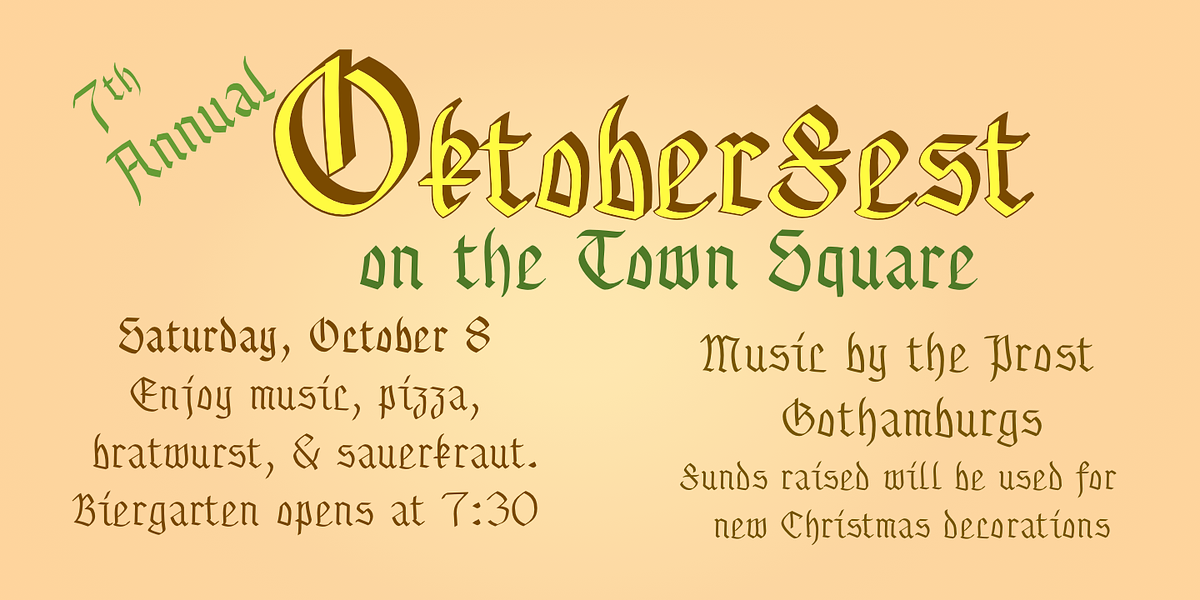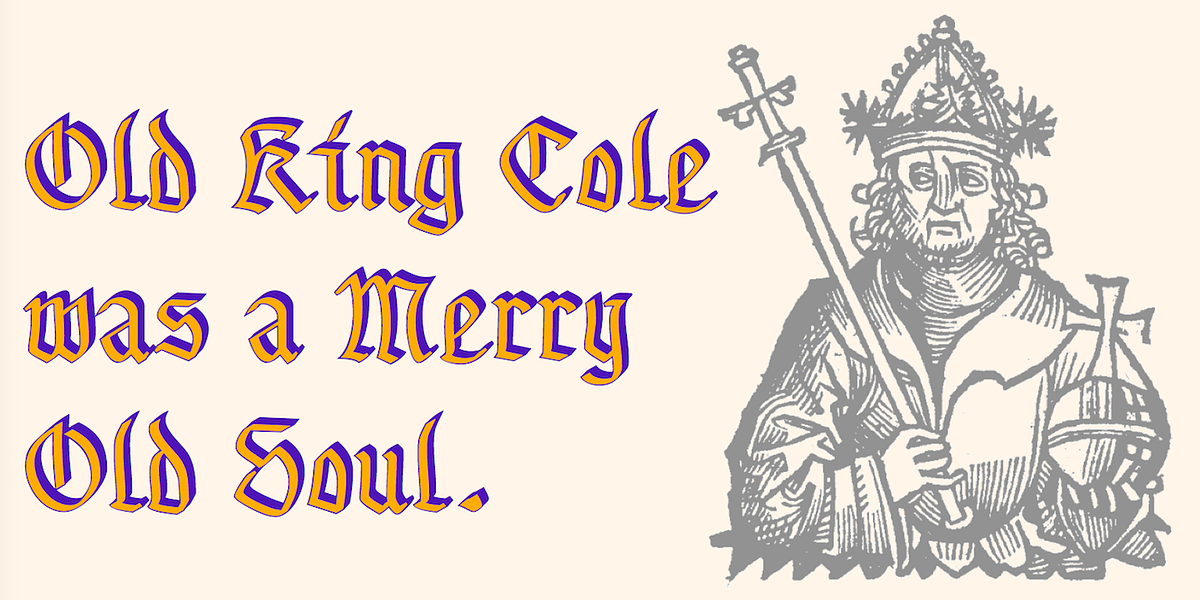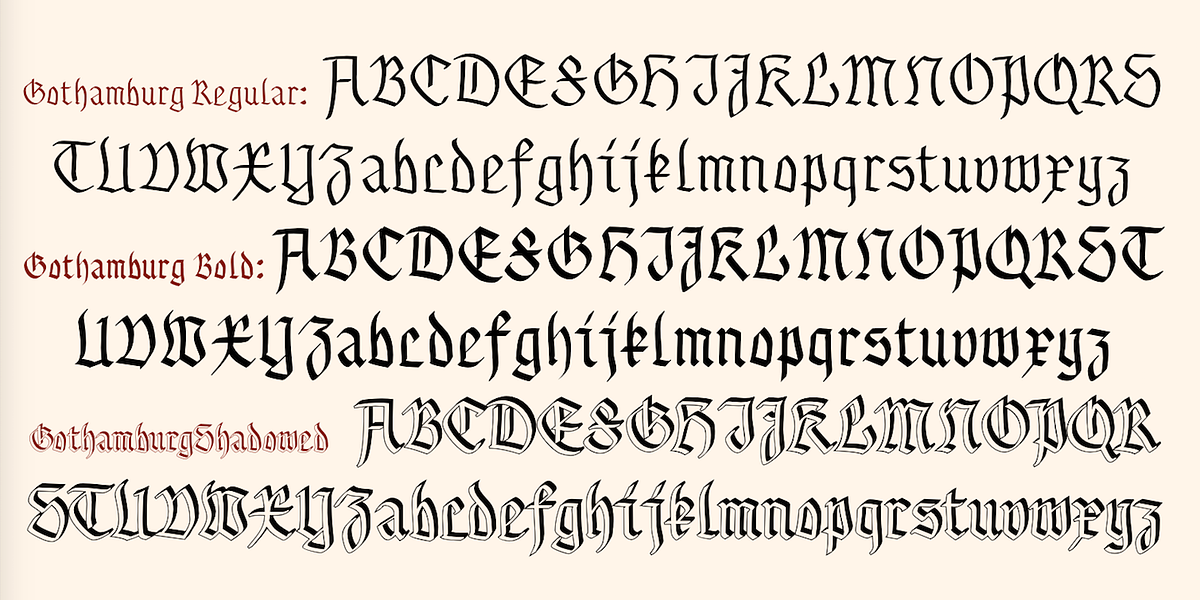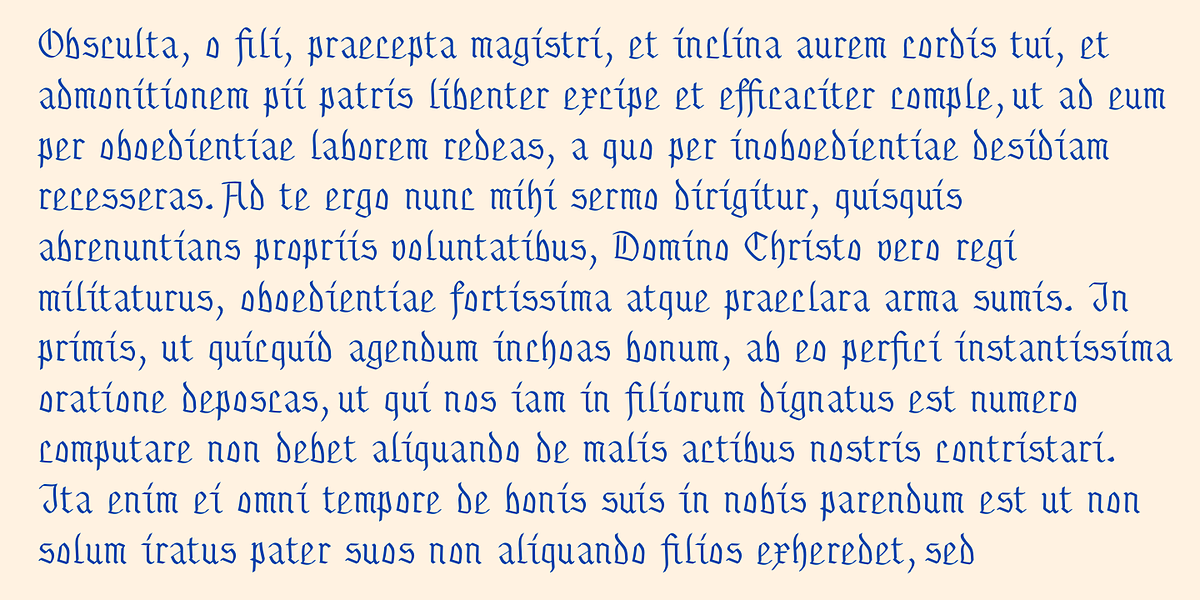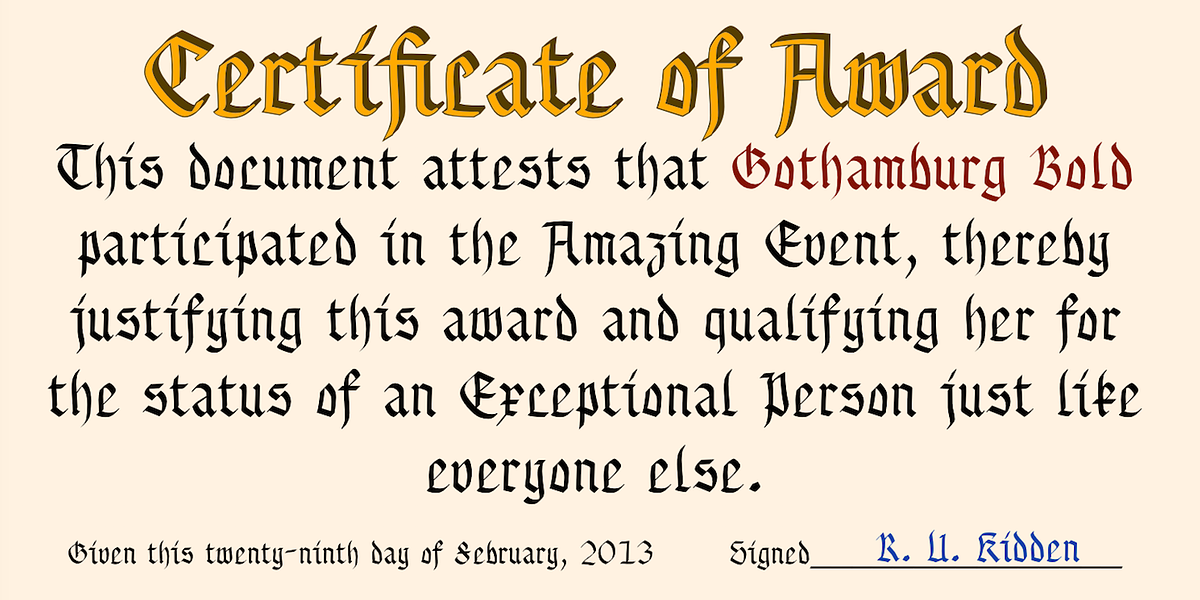
Gothamburg
Gothamburg is a blackletter font that draws inspiration from medieval gothic lettering styles. It features both plain and bold versions with distinct pen angles and stroke contrasts. A unique 'ShadowedInside' style allows for layering with the shadowed version to create two-color lettering effects.